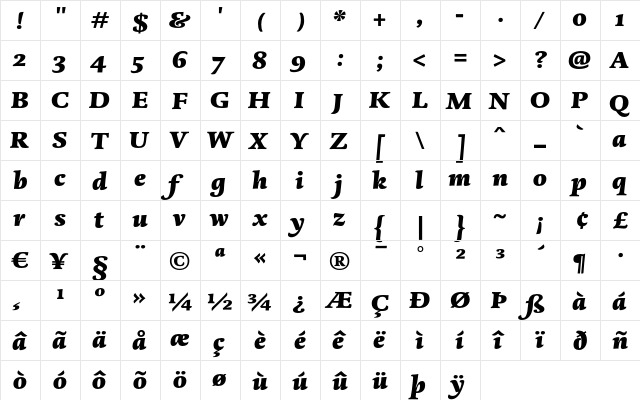
DTL Dorian ST Heavy Italic
Design Context for DTL Dorian Typeface
DTL Dorian offers clean, dependable letterforms without strong stylistic allegiance, making it a practical choice for designers who need flexibility. The dynamic lean of this cut emphasises speed and emphasis in any layout.
Pro Tip: Use DTL Dorian for emphasis, pull quotes, and subheadings where its slanted energy can add rhythm to the layout.